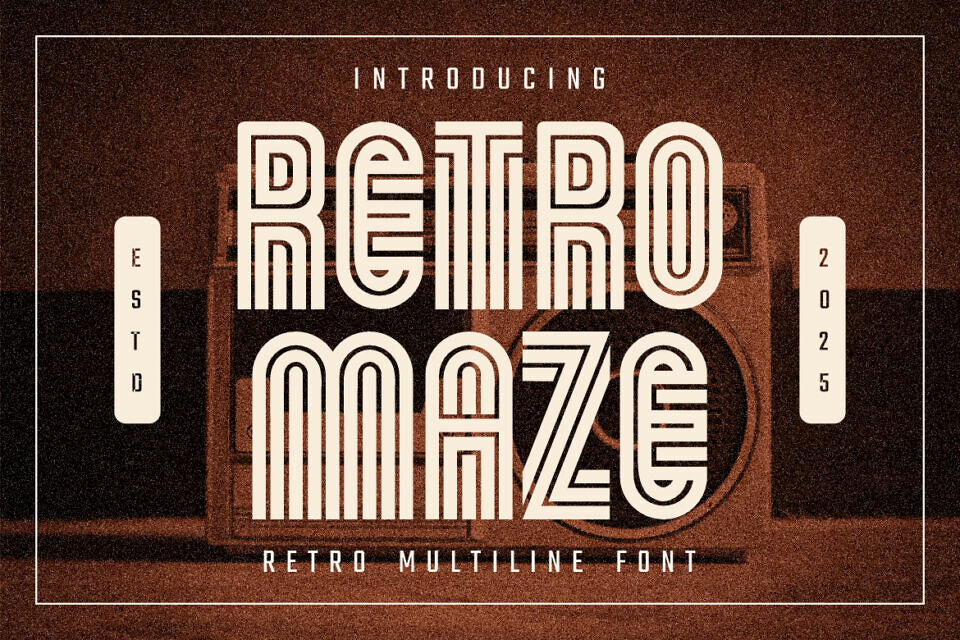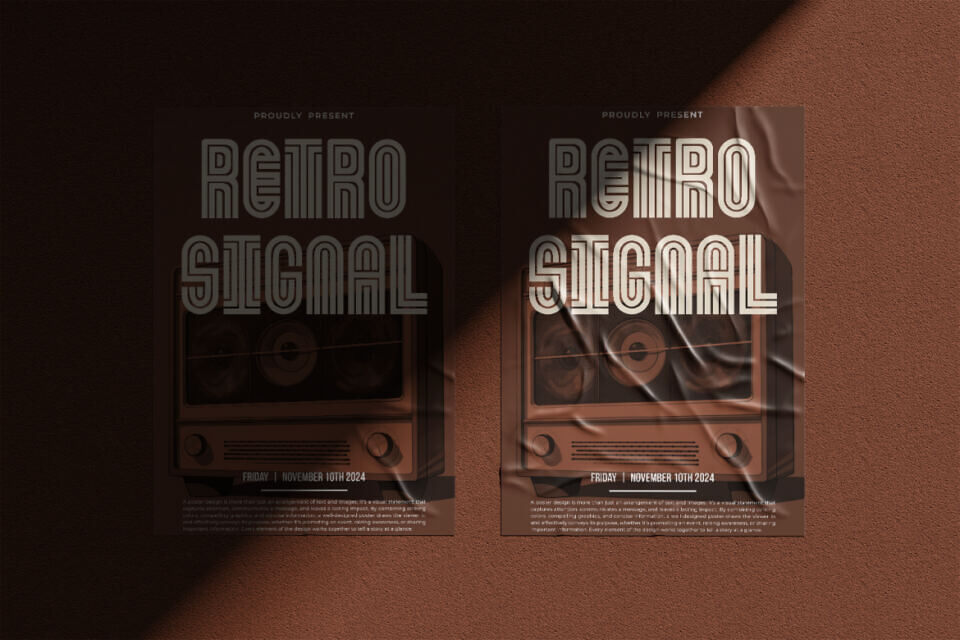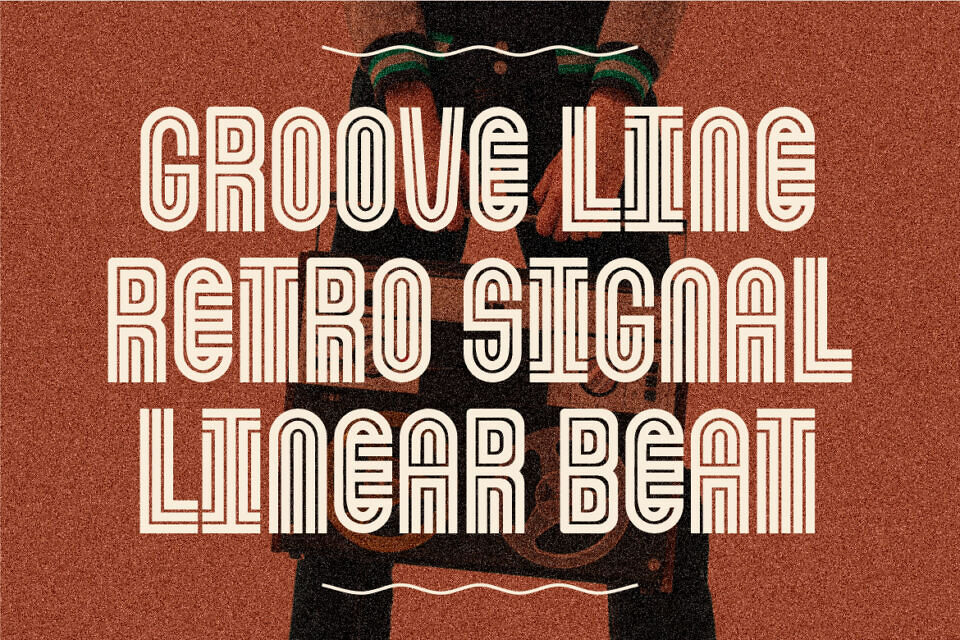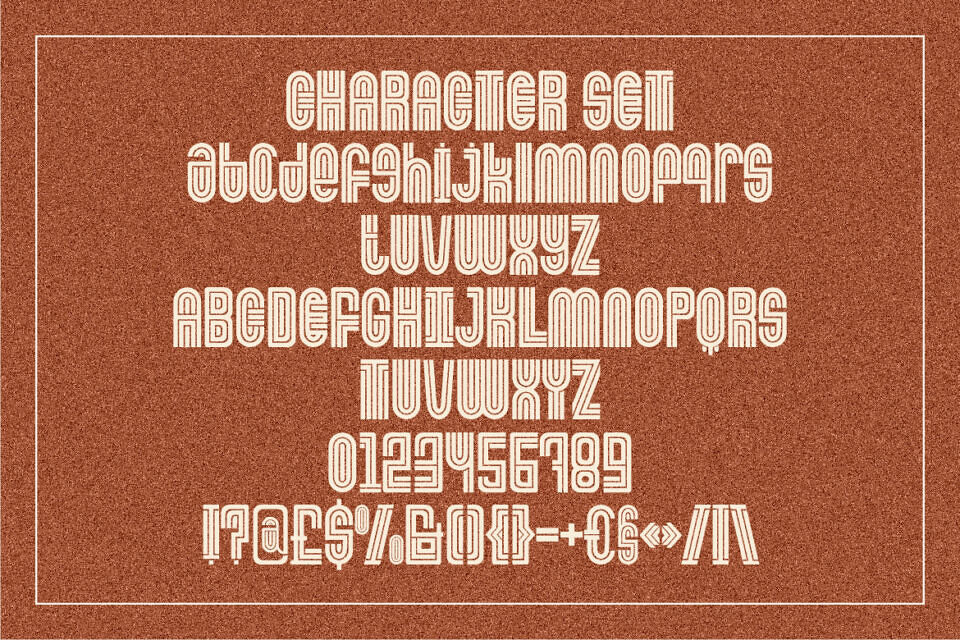
Retromaze Font
Retromaze Retro Multiline Font is a striking typeface designed to capture the timeless essence of vintage typography. Each character is built with clean parallel lines, giving a maze-like geometric structure that feels bold yet stylish.
The design embraces the retro aesthetic of the 70s and 80s while keeping a modern readability that makes it ideal for display use. Its tall letterforms and layered linework create a rhythm that draws the eye, making it perfect for standout headlines, posters, and branding projects.